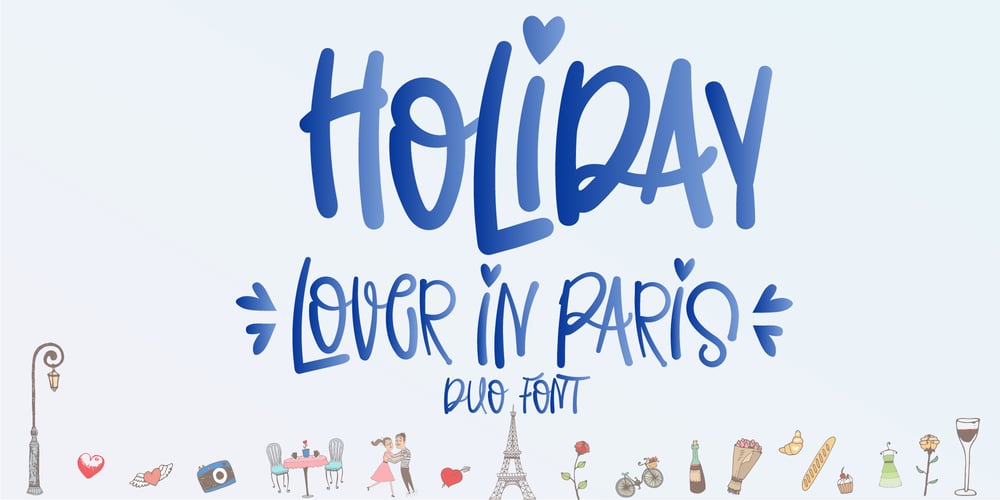
Holiday In Paris
Holiday In Paris font
Holiday In Paris Font Family was designed by Ake Thanantreesak and published by Ake. Holiday In Paris contains 2 styles and family package options. Experience modern elegance with ‘Holiday in Paris’ Fonts. A casually cool handwritten typeface that adds contemporary flair to any project. Perfect for travel journals, social media, and invitations, it balances artistic strokes with readability, infusing your design with Parisian charm.